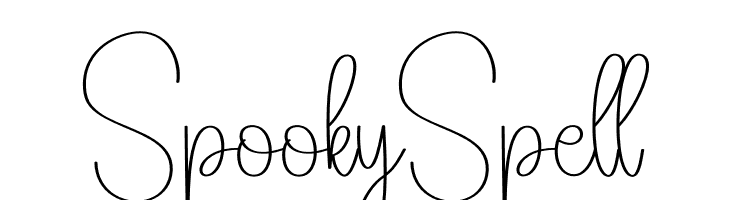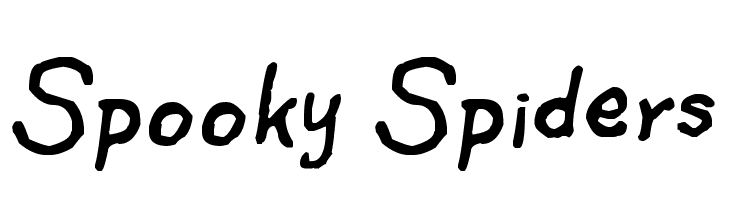
A bold, jagged font with a spooky, horror-inspired design.
A playful, spooky font with jagged edges and bold, irregular styling.
A playful, spooky font with dripping, melting shapes.
A playful, bold font with a whimsical 'hole' pattern in each character.
A playful, bold, and hand-drawn font with rounded, irregular characters.
A playful, spooky display font with Halloween-themed characters.
A whimsical, handwritten font with tall, narrow letters and playful strokes.
A whimsical, Halloween-themed font with characters in witch hat frames.
A quirky, handwritten font with a playful and slightly spooky vibe.
A bold, jagged font with a spooky, monster-like appearance.